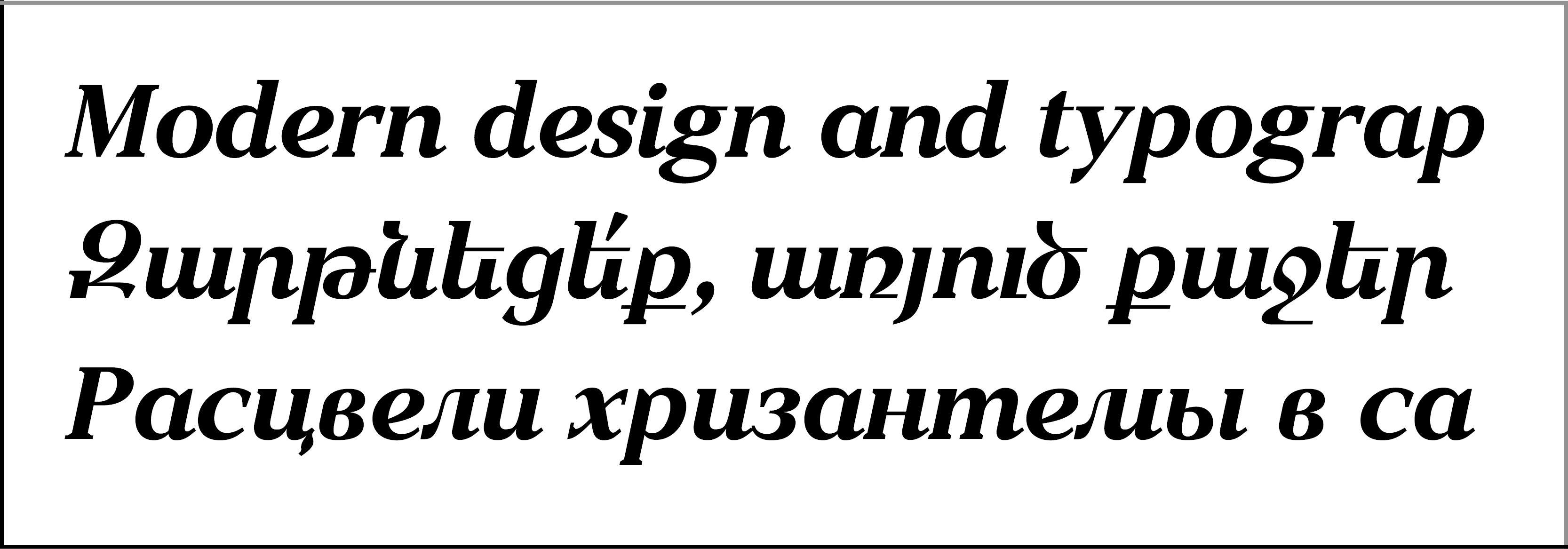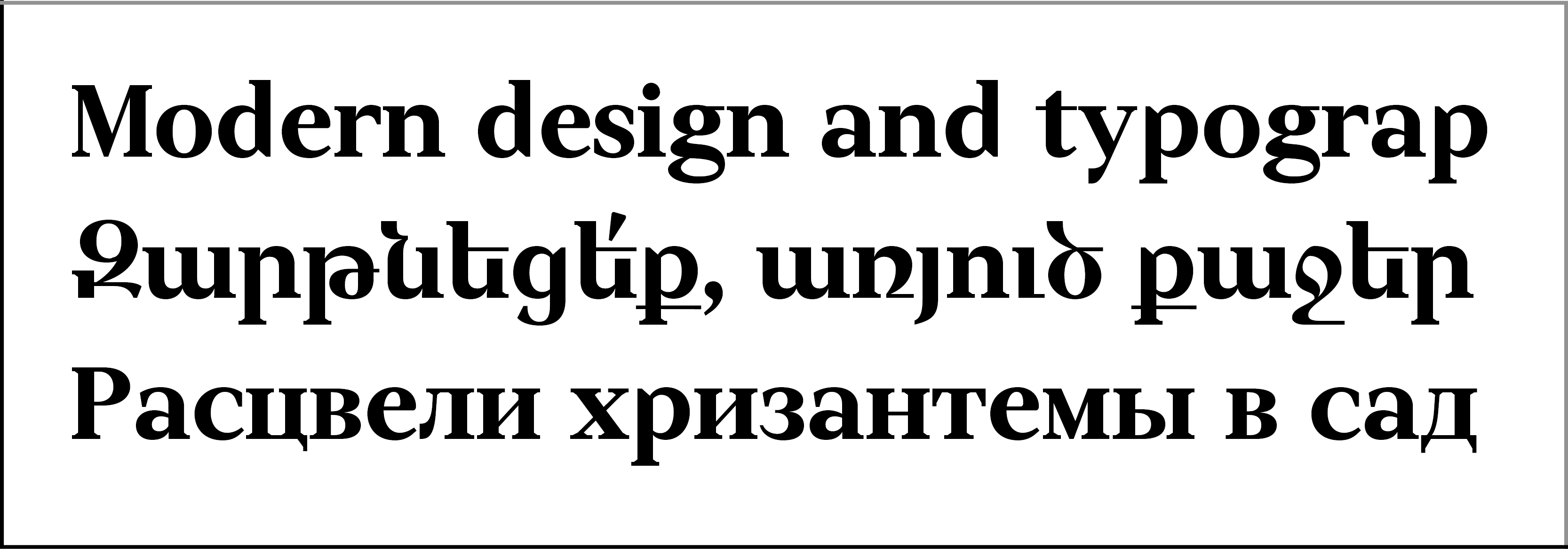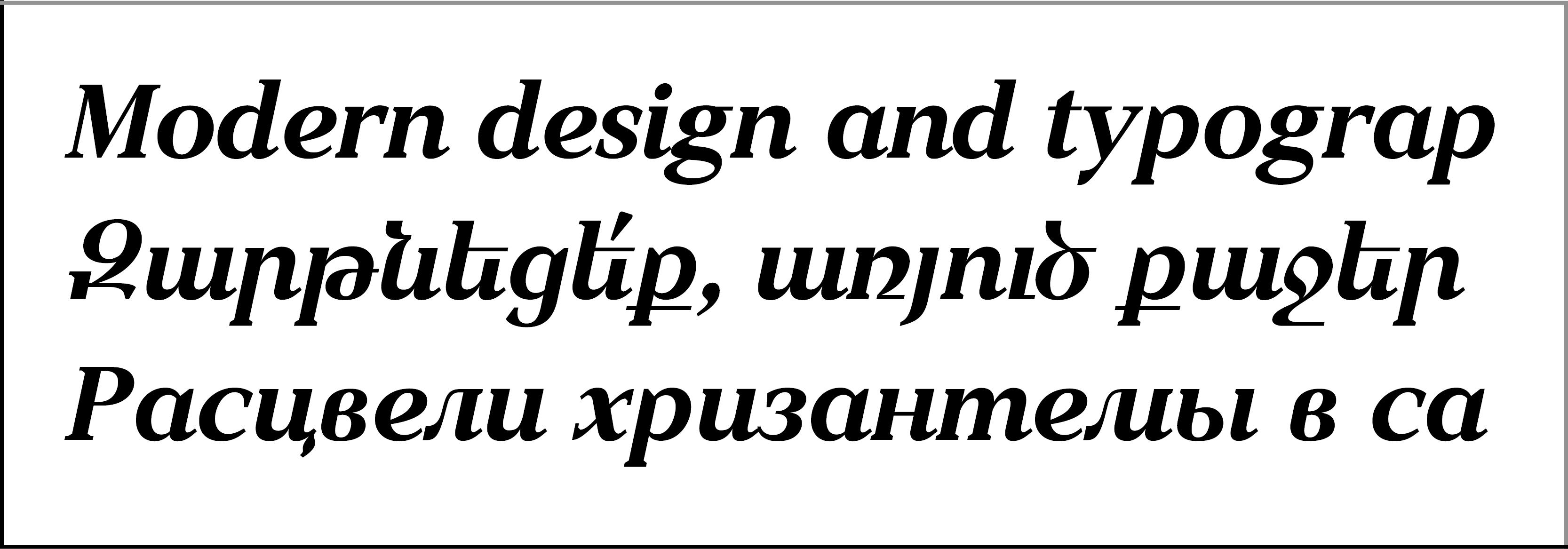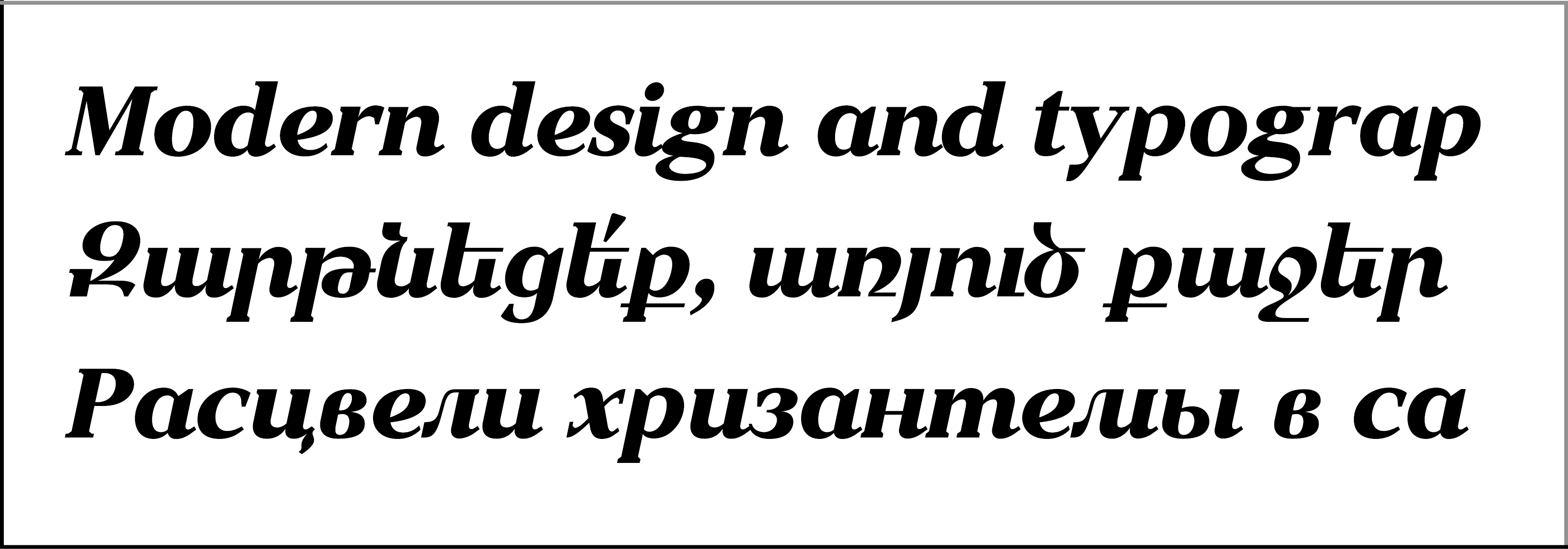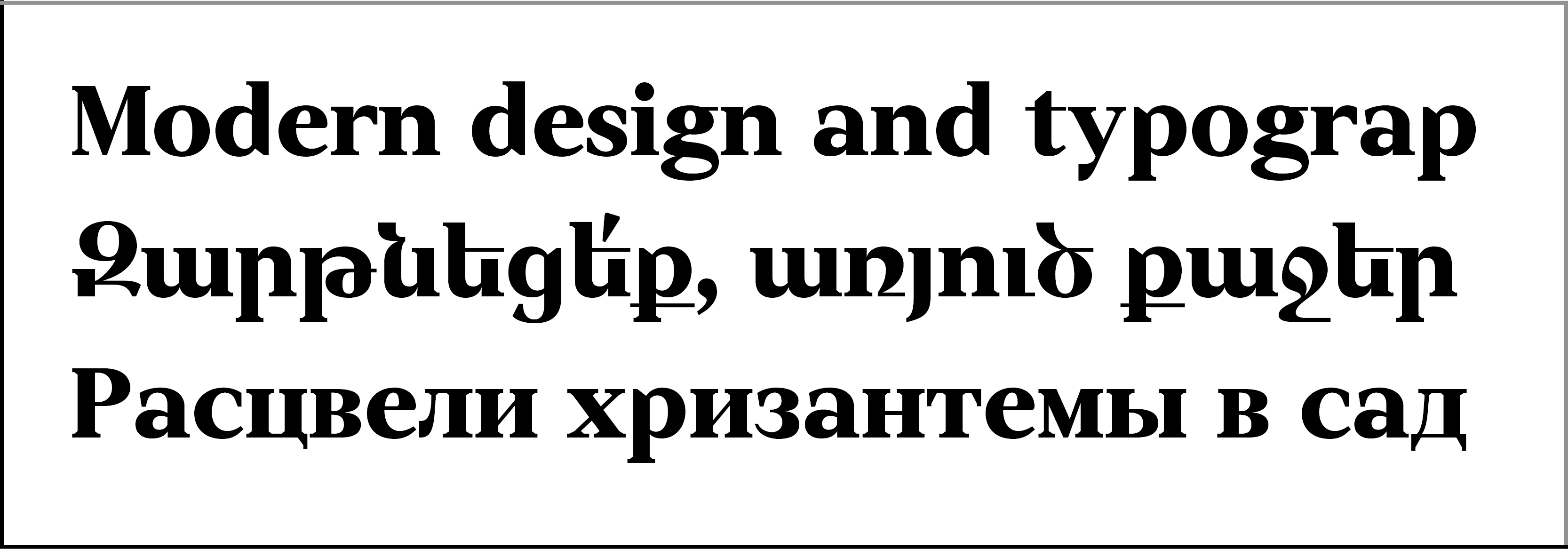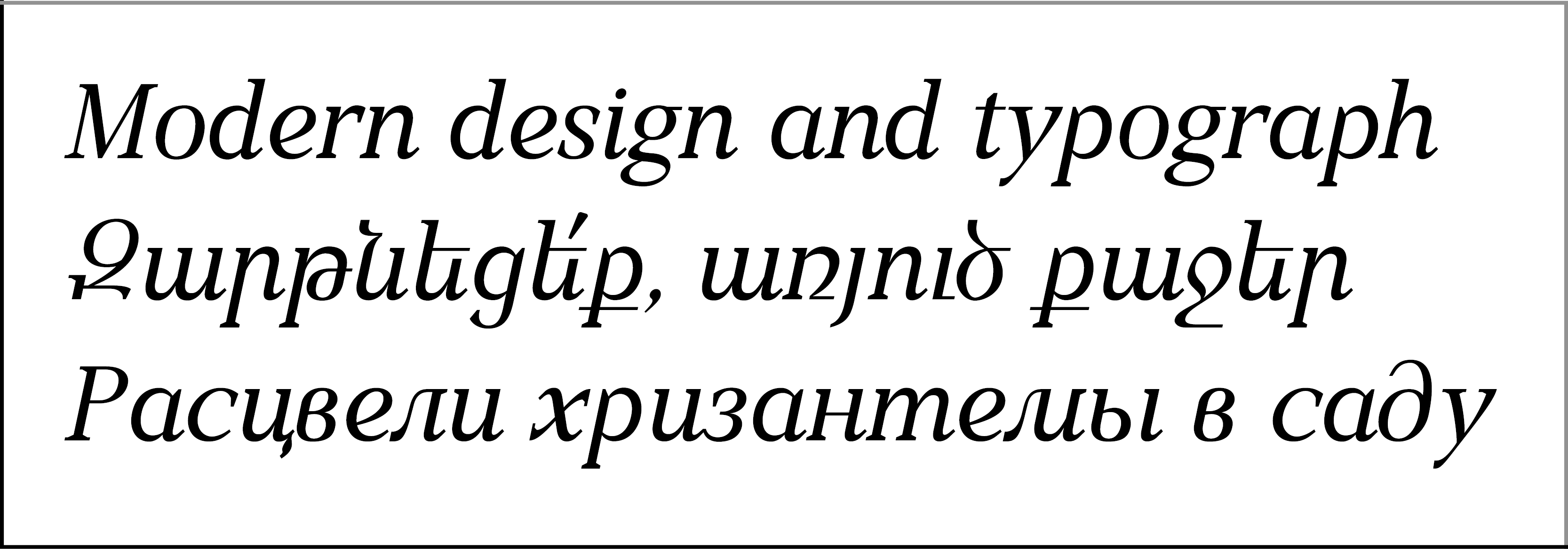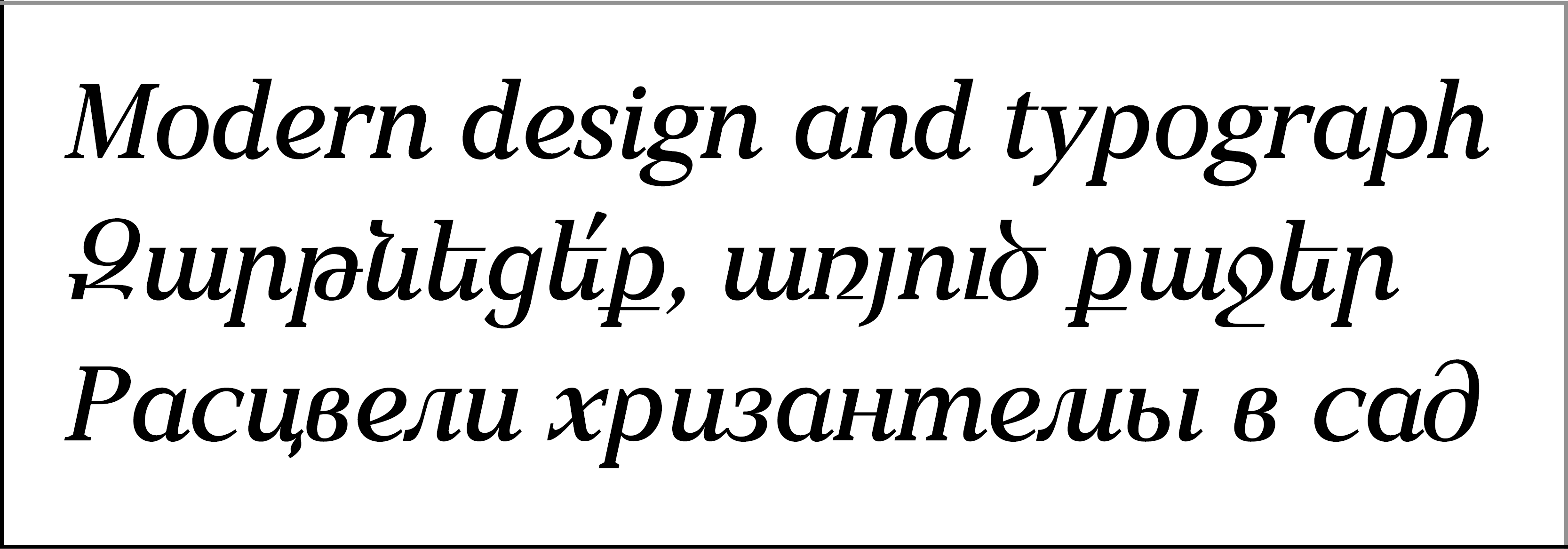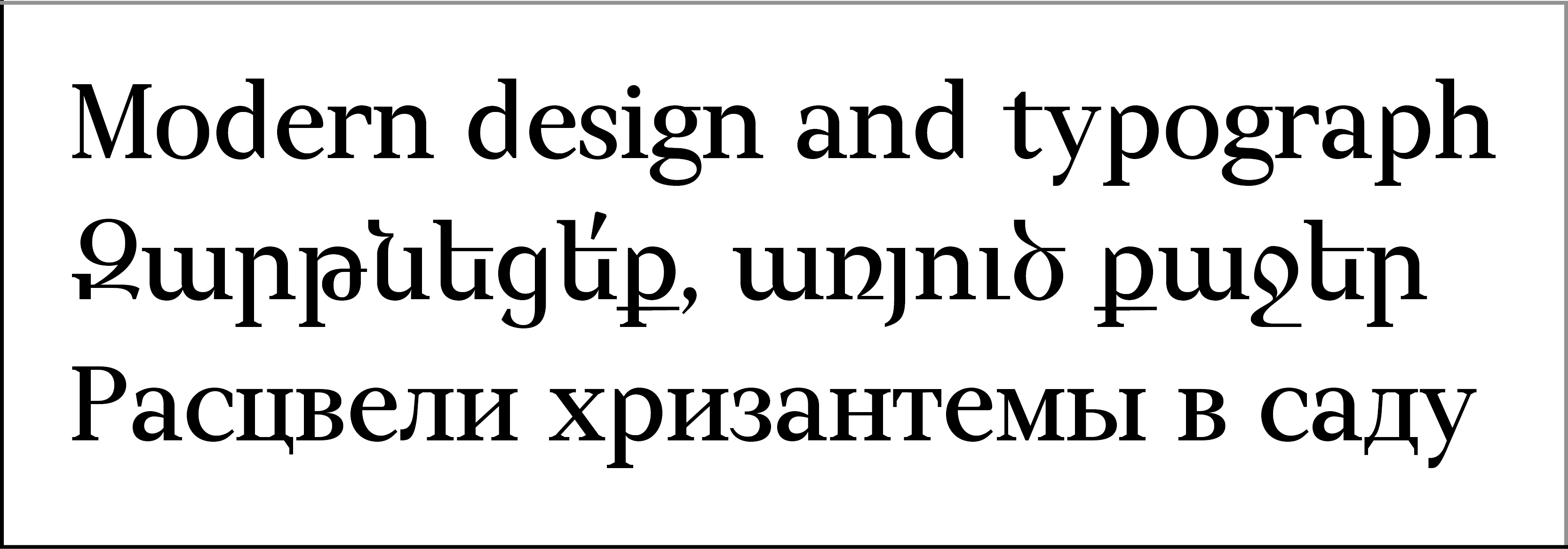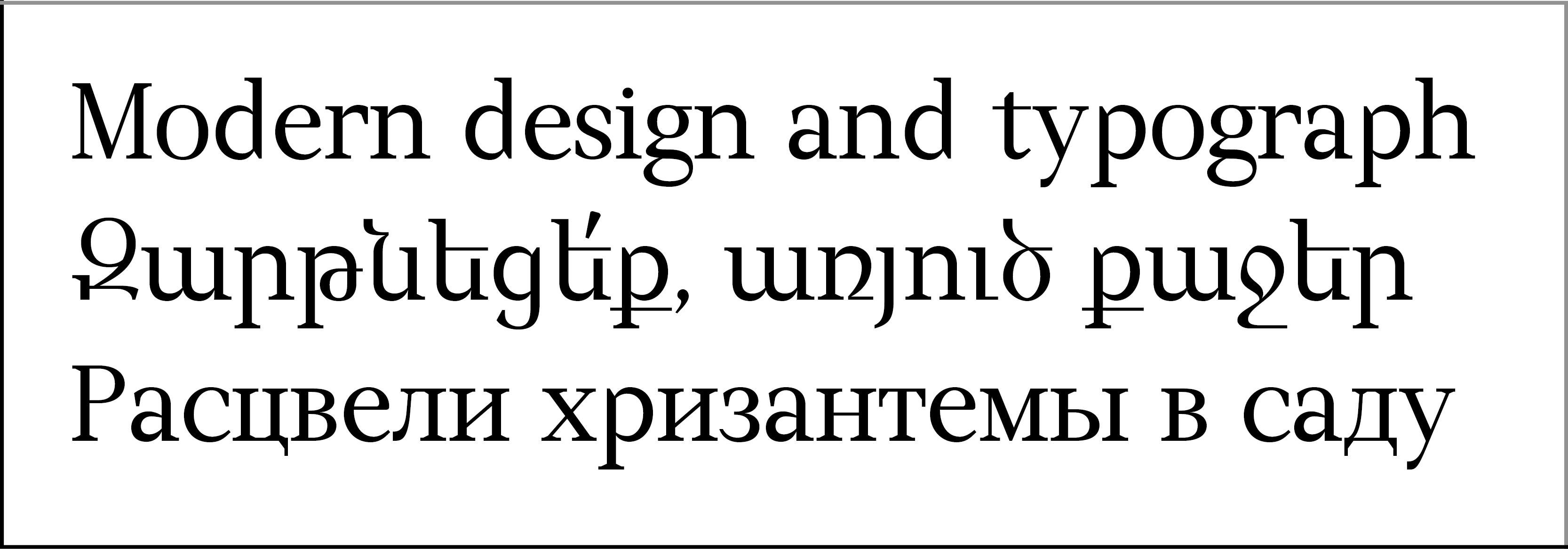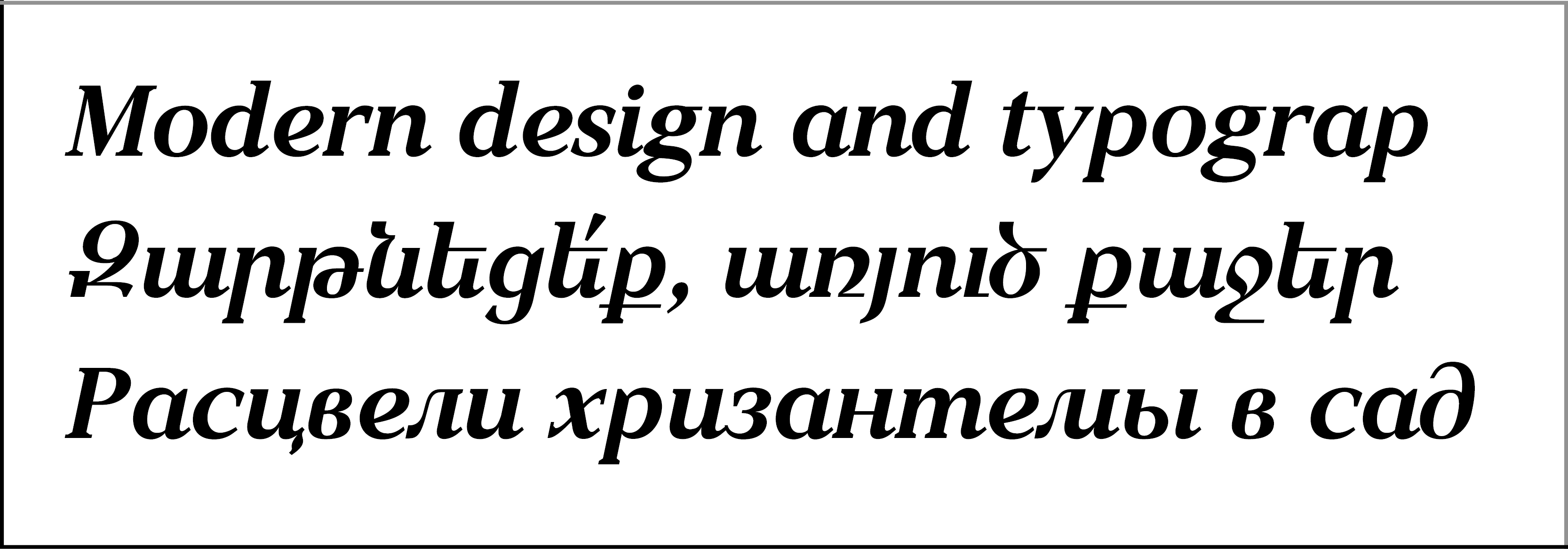
Edik Ghabuzyan, Serif typefaces
GHEA Samo
Design date: 2021
The font family includes Armenian,  Latin Centra European and  Cyrillic alphabet systems.
The font can be used as a text and Display font.